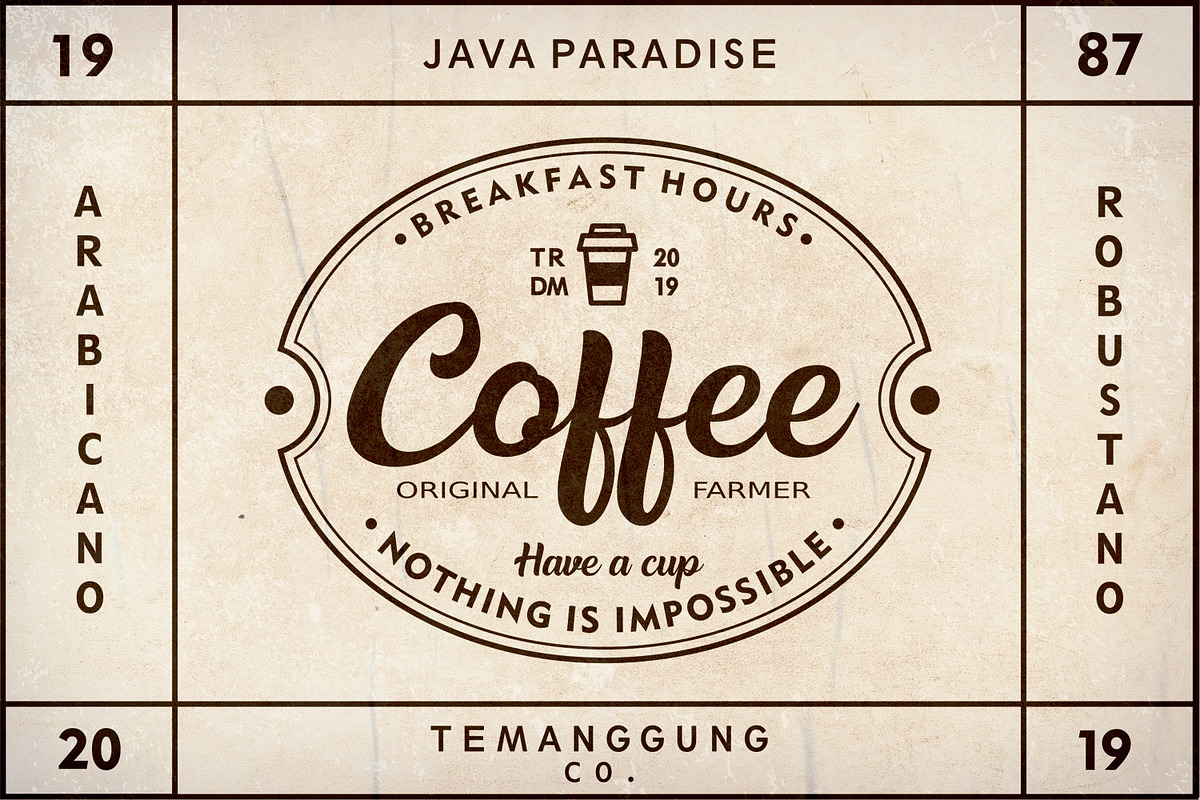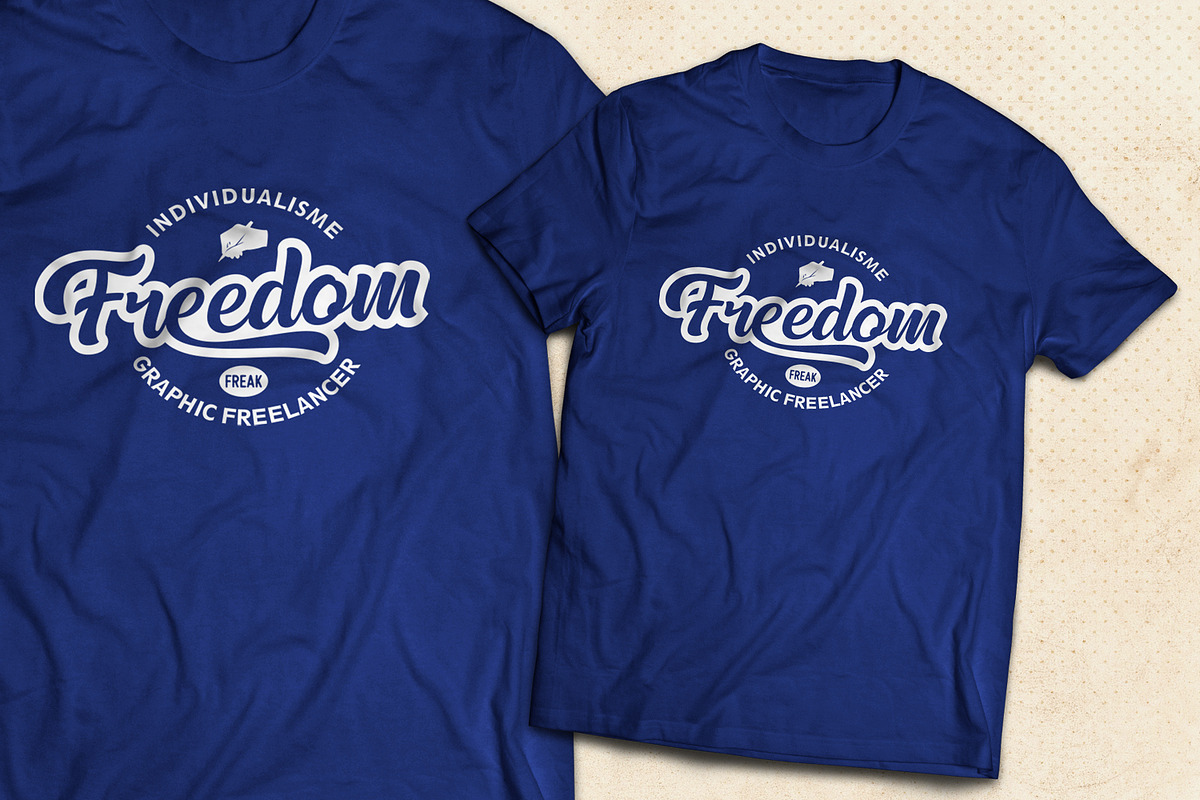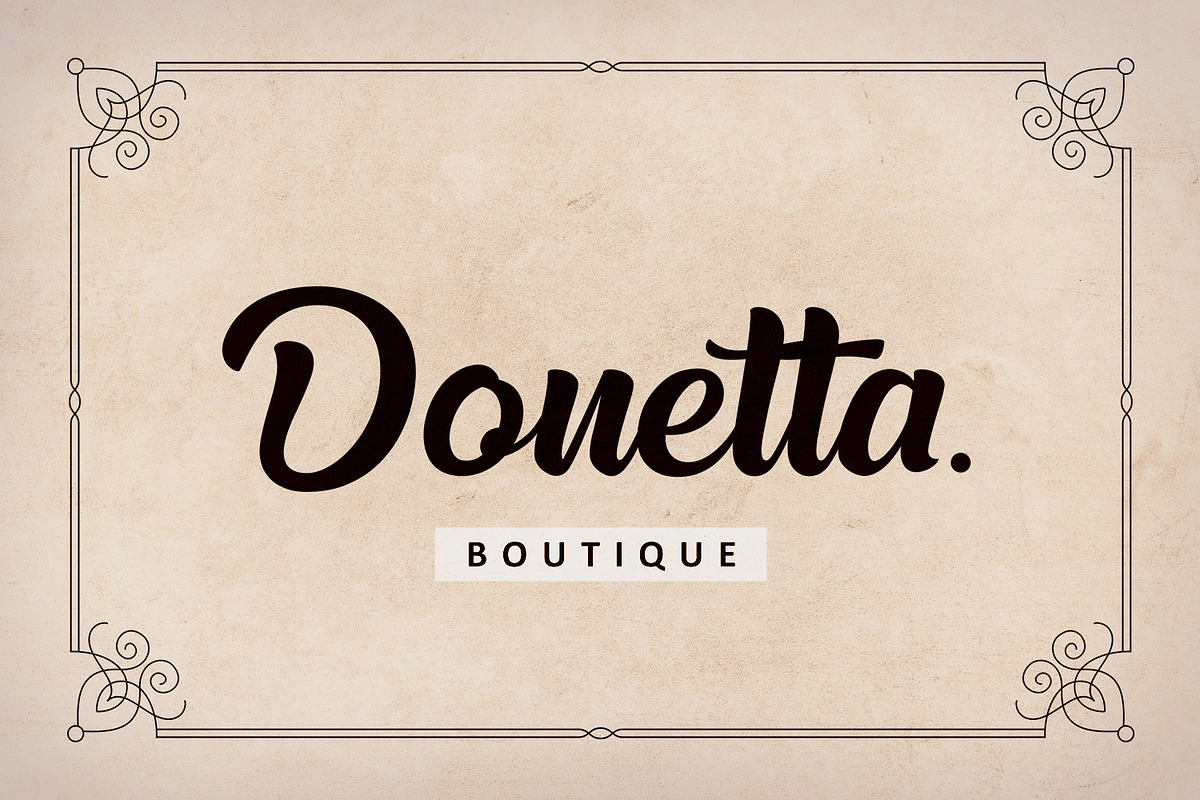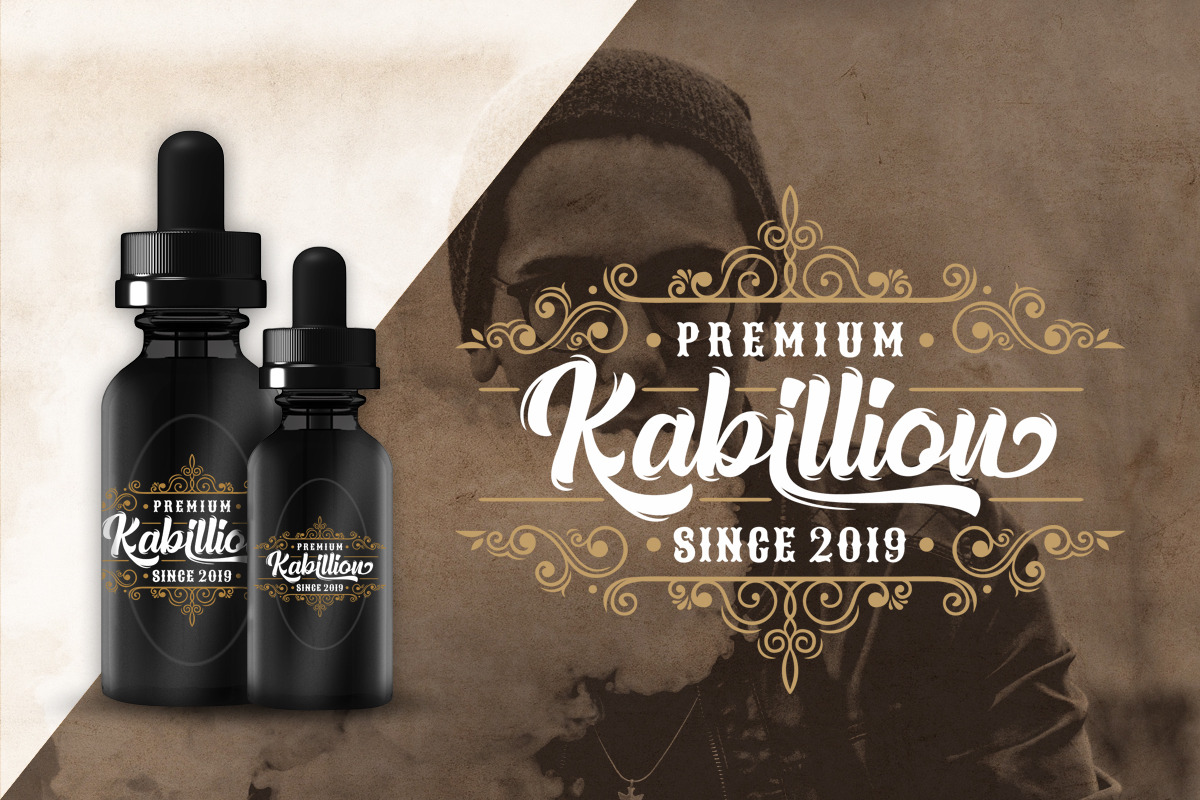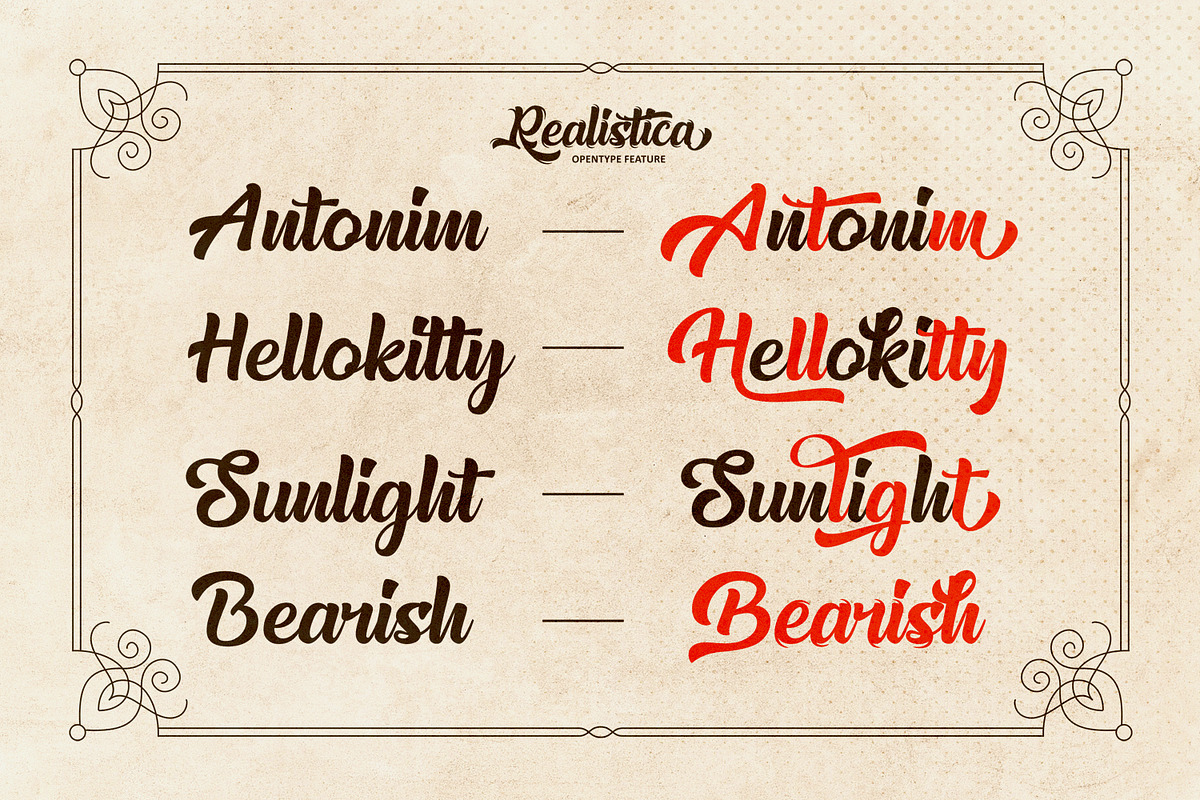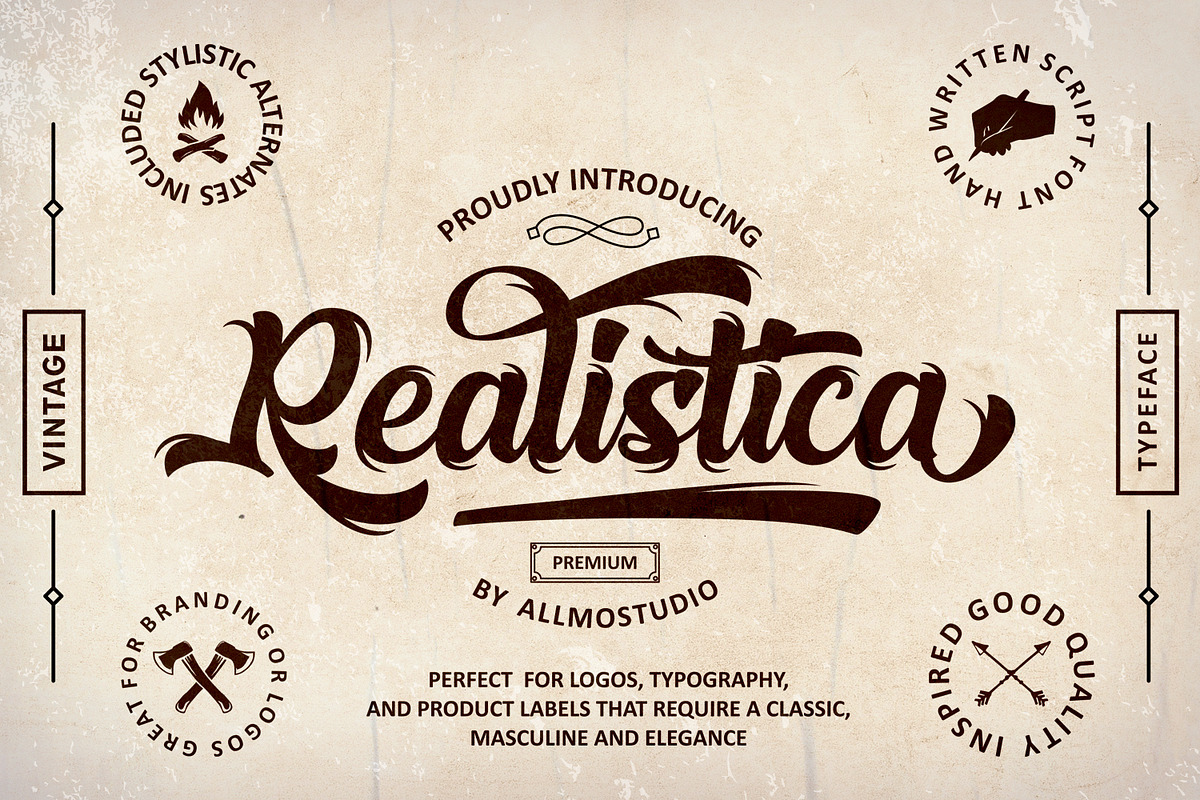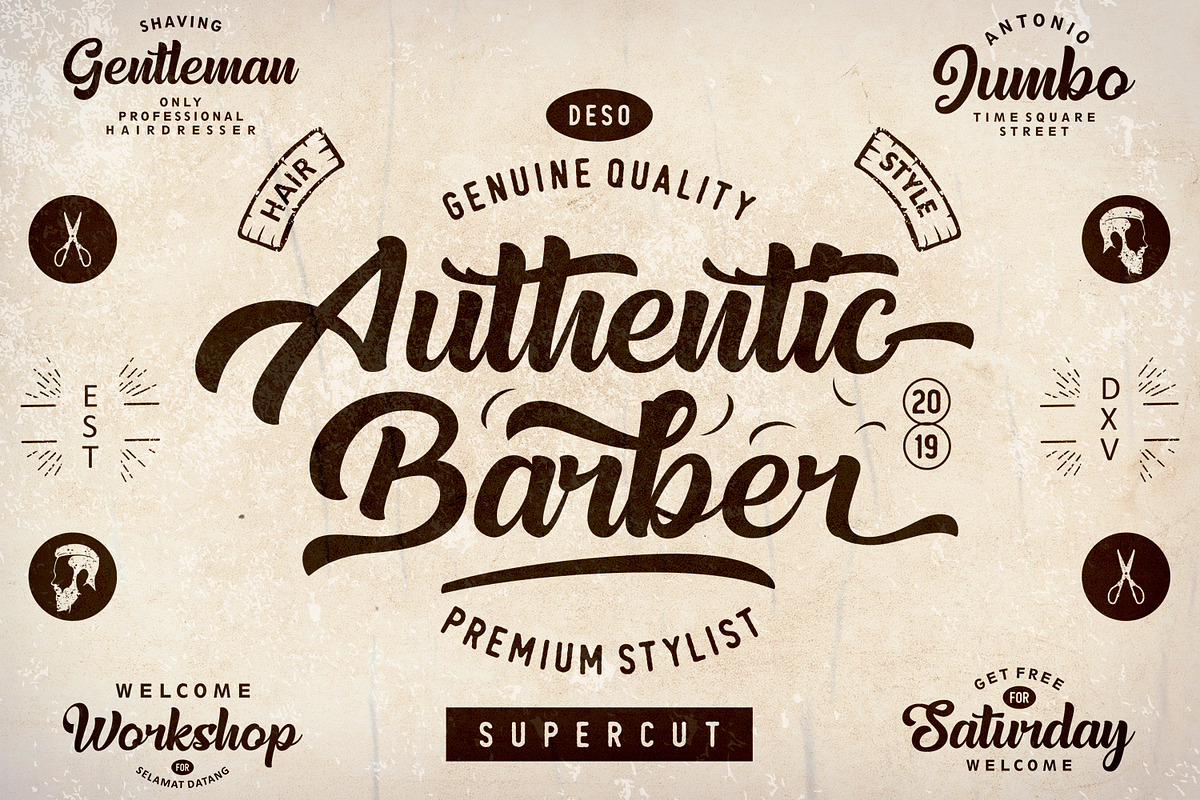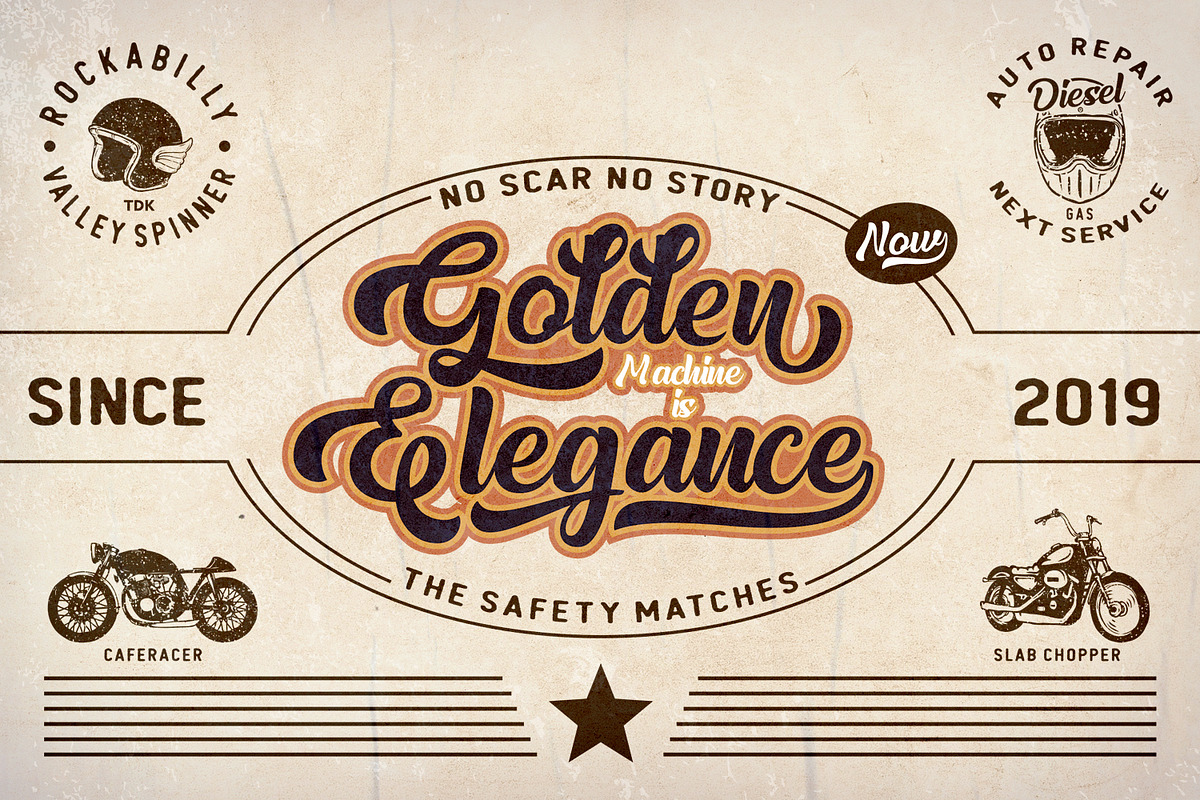
Realistica Font
Realistica Font was made with a touch of vintage and combinating with modern design I've been created hand lettering to make your design more awesome. This font will work on any media, perfectly match your vintage design, t-shirt, logo, labels, badges, posters and etc.
Realistica Font by Allmostudio fits naturally into Branding, posters, packaging, typography.